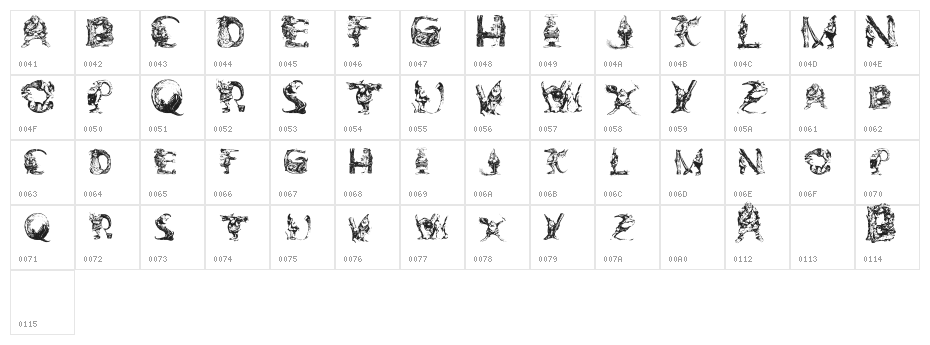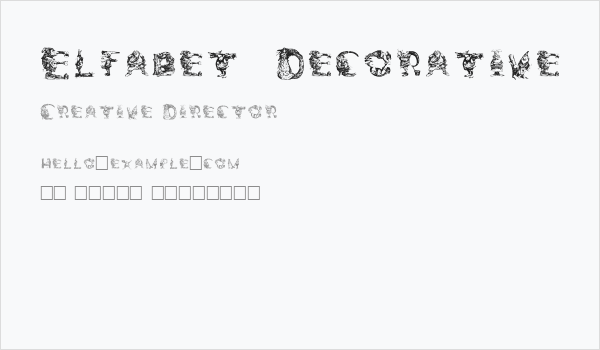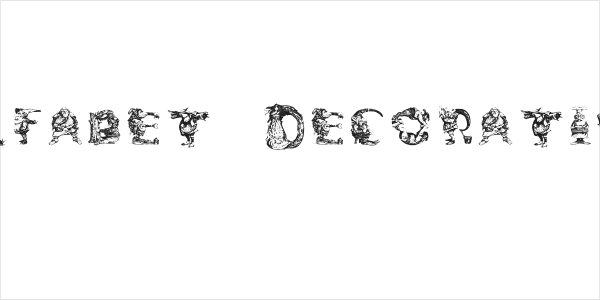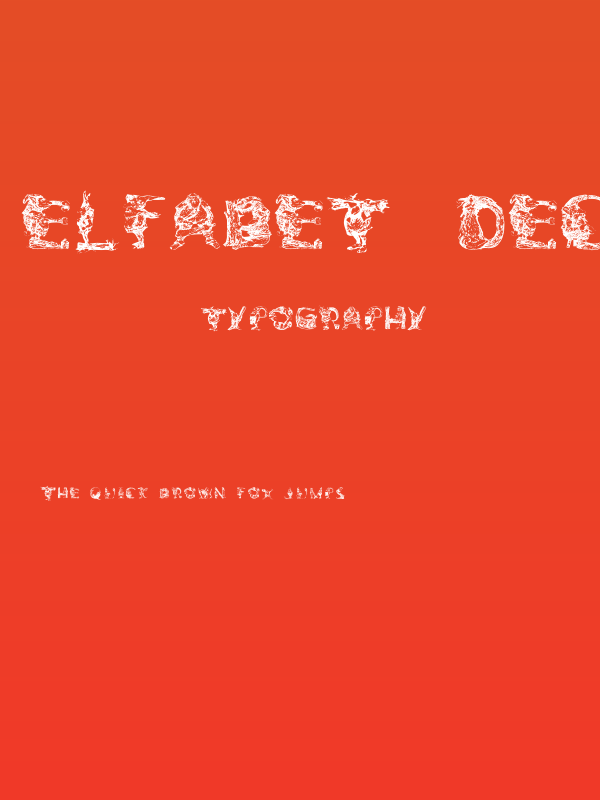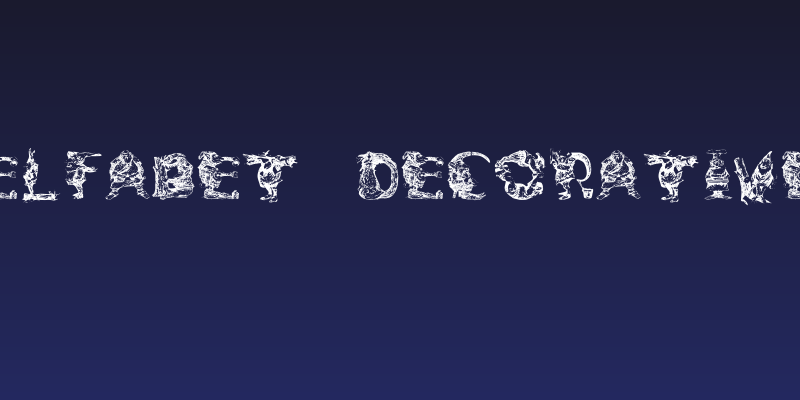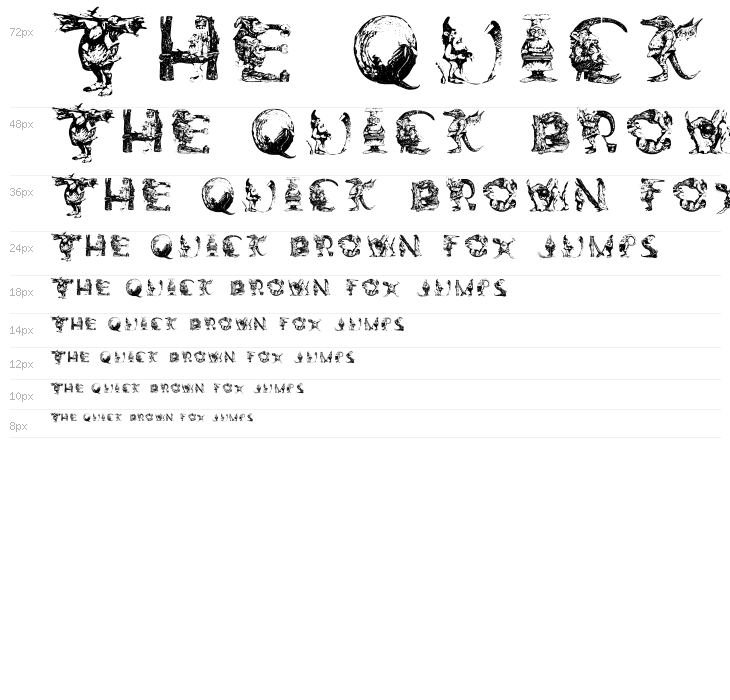
Elfabet Decorative Font
Elfabet Decorative Description
This font features an intricate and decorative style, with each character appearing as if it is woven from organic, swirling elements. The letters are highly detailed, resembling a fusion of nature-inspired motifs and abstract art. The uppercase and lowercase characters maintain a consistent aesthetic, creating a cohesive and visually striking appearance. The font's unique design makes it stand out, offering a sense of mystery and fantasy. It is not suitable for body text due to its complexity but excels in capturing attention in headlines or artistic projects.
| Proposed Projects | Ideal for fantasy-themed posters, artistic book covers, unique branding, and decorative invitations. |